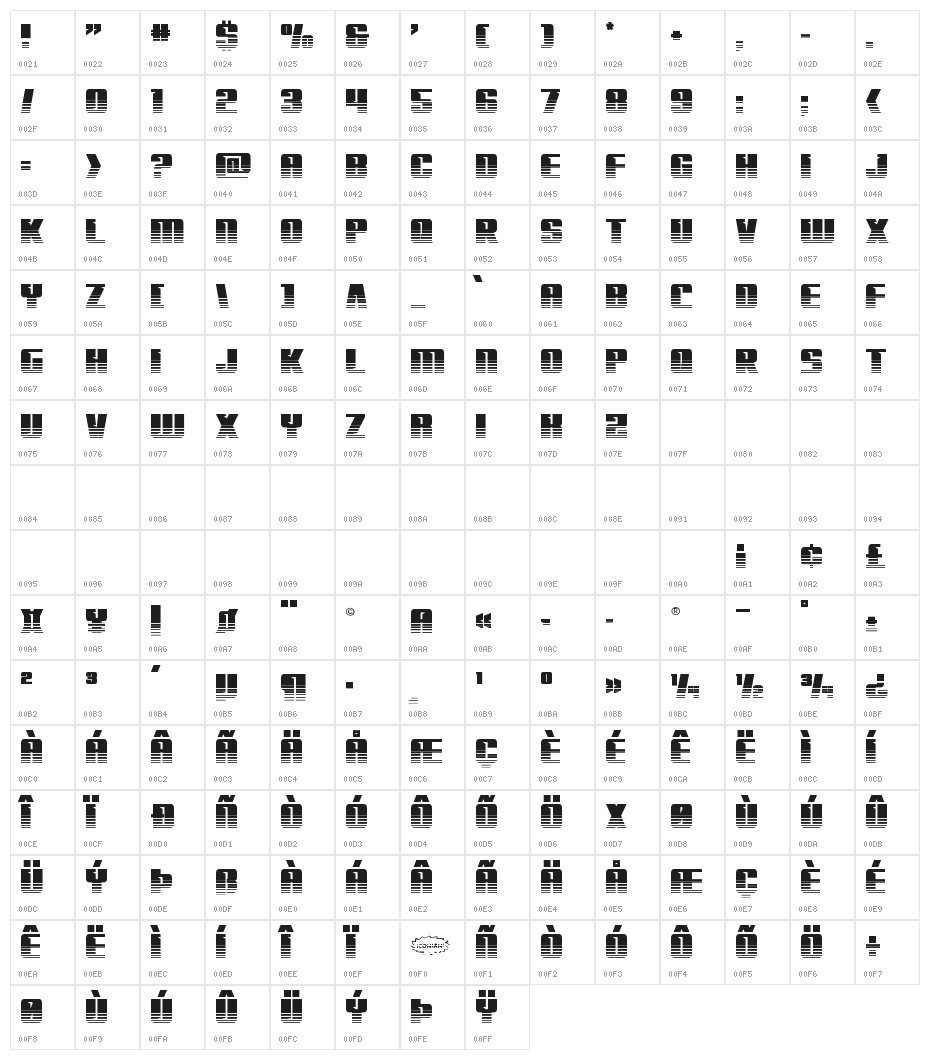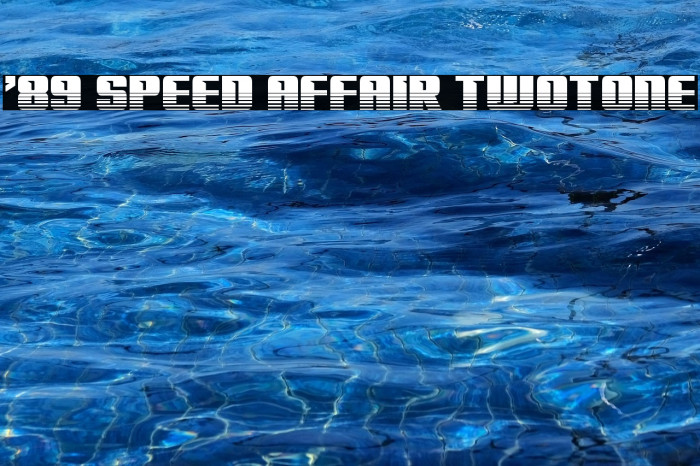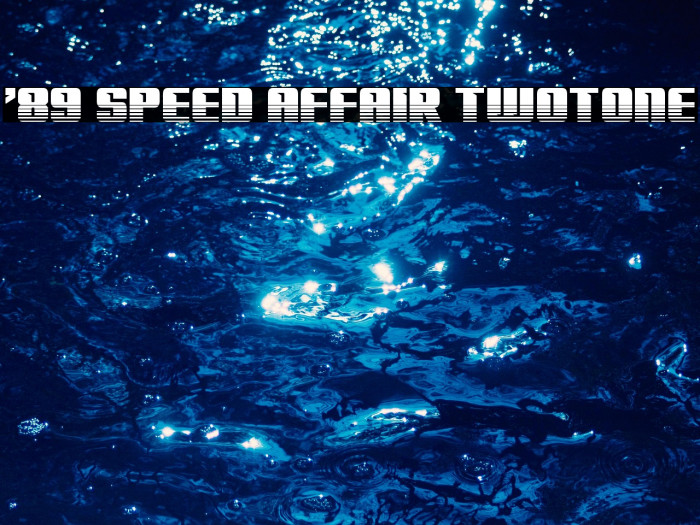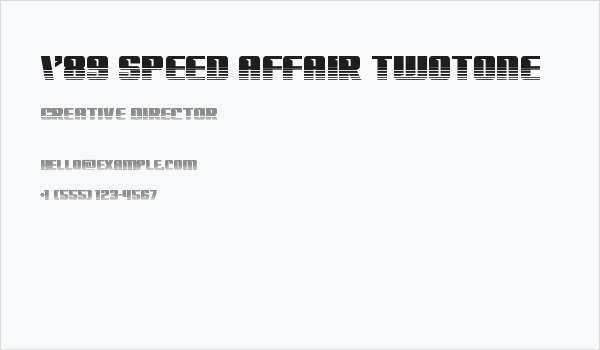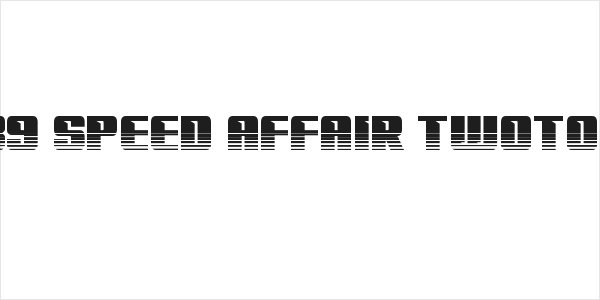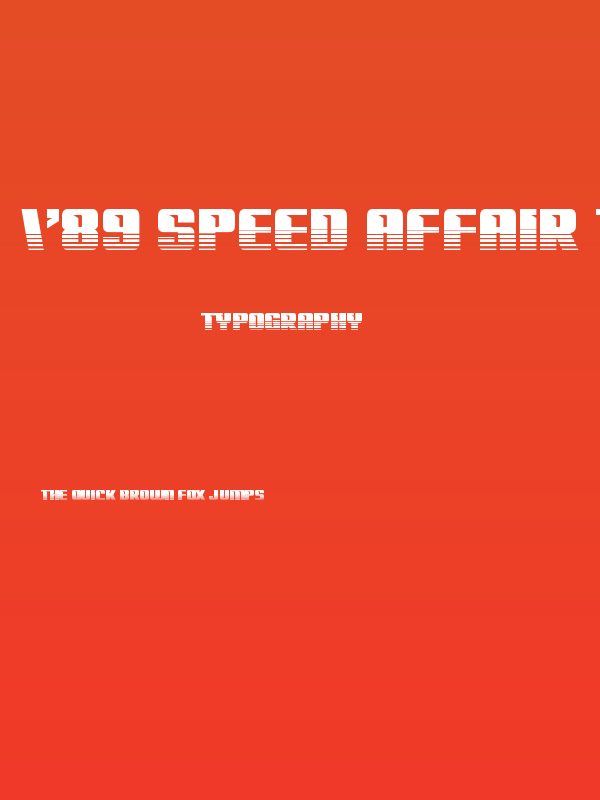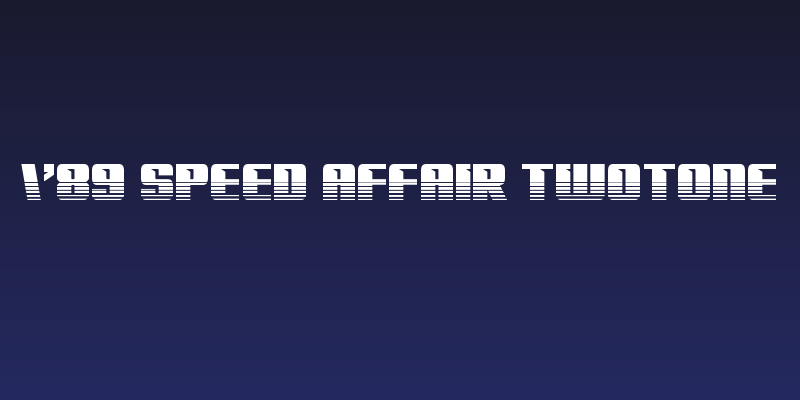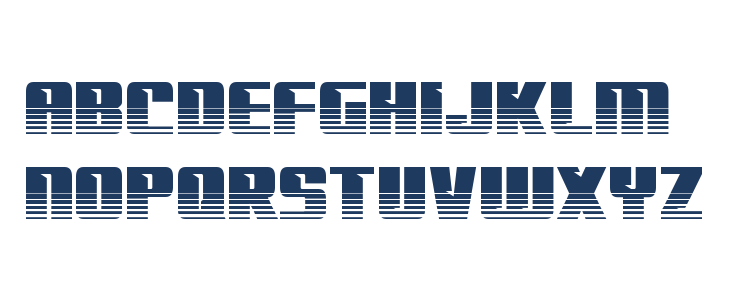
'89 Speed Affair Twotone Font
'89 Speed Affair Twotone Description
This font features a bold and dynamic design with a distinct two-tone effect that gives it a sense of speed and movement. The characters are wide and blocky, with horizontal lines cutting through the lower half of each letter, creating a striped pattern that enhances the feeling of motion. The uppercase and lowercase letters maintain a consistent style, while the numerals and special characters follow the same aesthetic, ensuring uniformity across all glyphs. This font's unique appearance makes it stand out, making it suitable for projects that require a modern and energetic look.